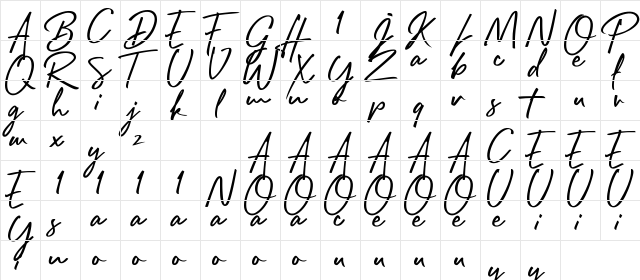
Rafttel Script DEMO Regular
Design Context for Rafttel Script DEMO Typeface
Rafttel Script DEMO flows with the natural rhythm of handwritten lettering, making it ideal for designs that call for warmth and personal expression.
Font Pairing: Combine Rafttel Script DEMO with a simple geometric sans for maximum contrast — the tension between flowing curves and clean structure is a classic typographic pairing.
Pro Tip: Pair Rafttel Script DEMO with a clean sans-serif for supporting text. The contrast between fluid script and geometric structure creates an elegant typographic hierarchy.